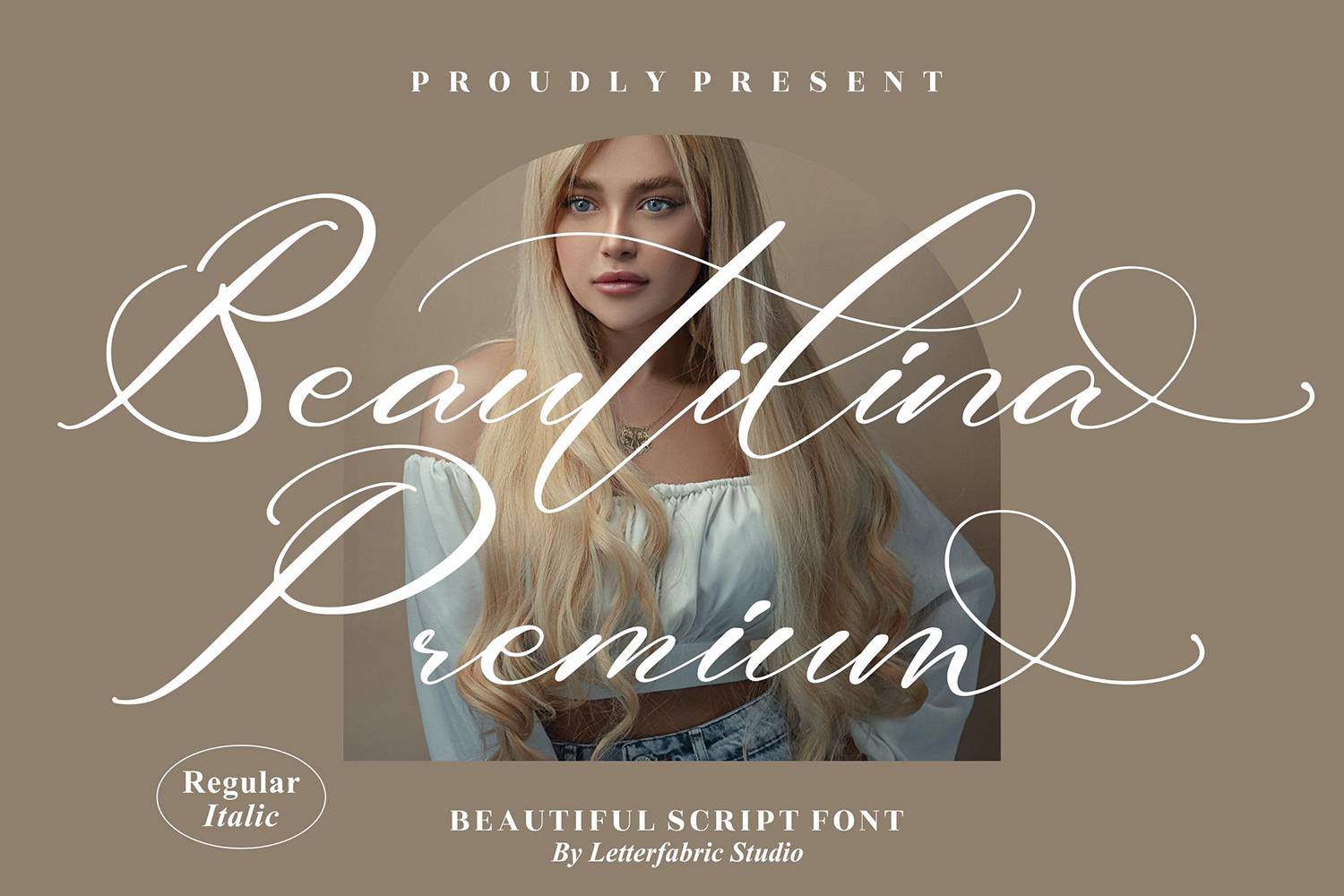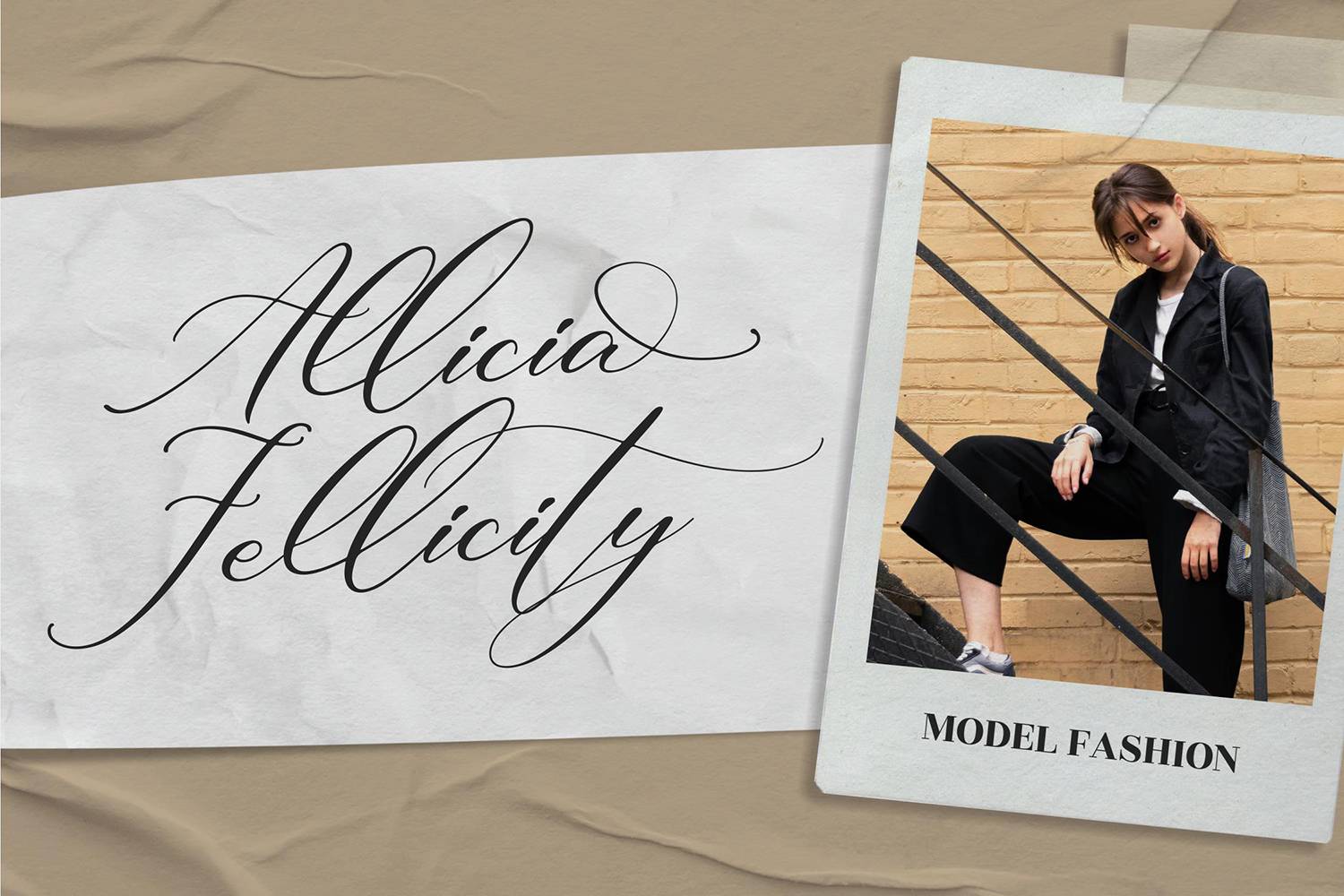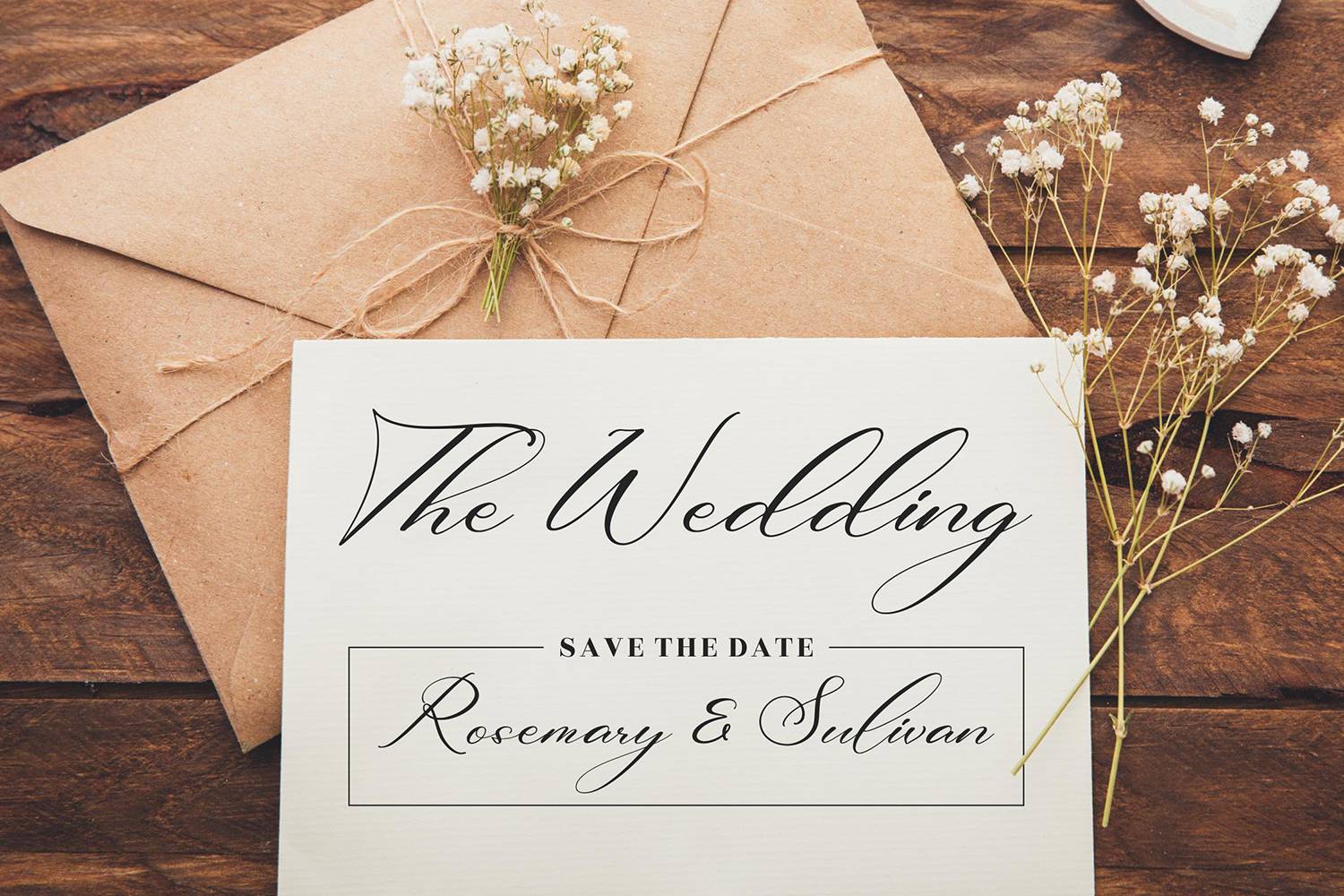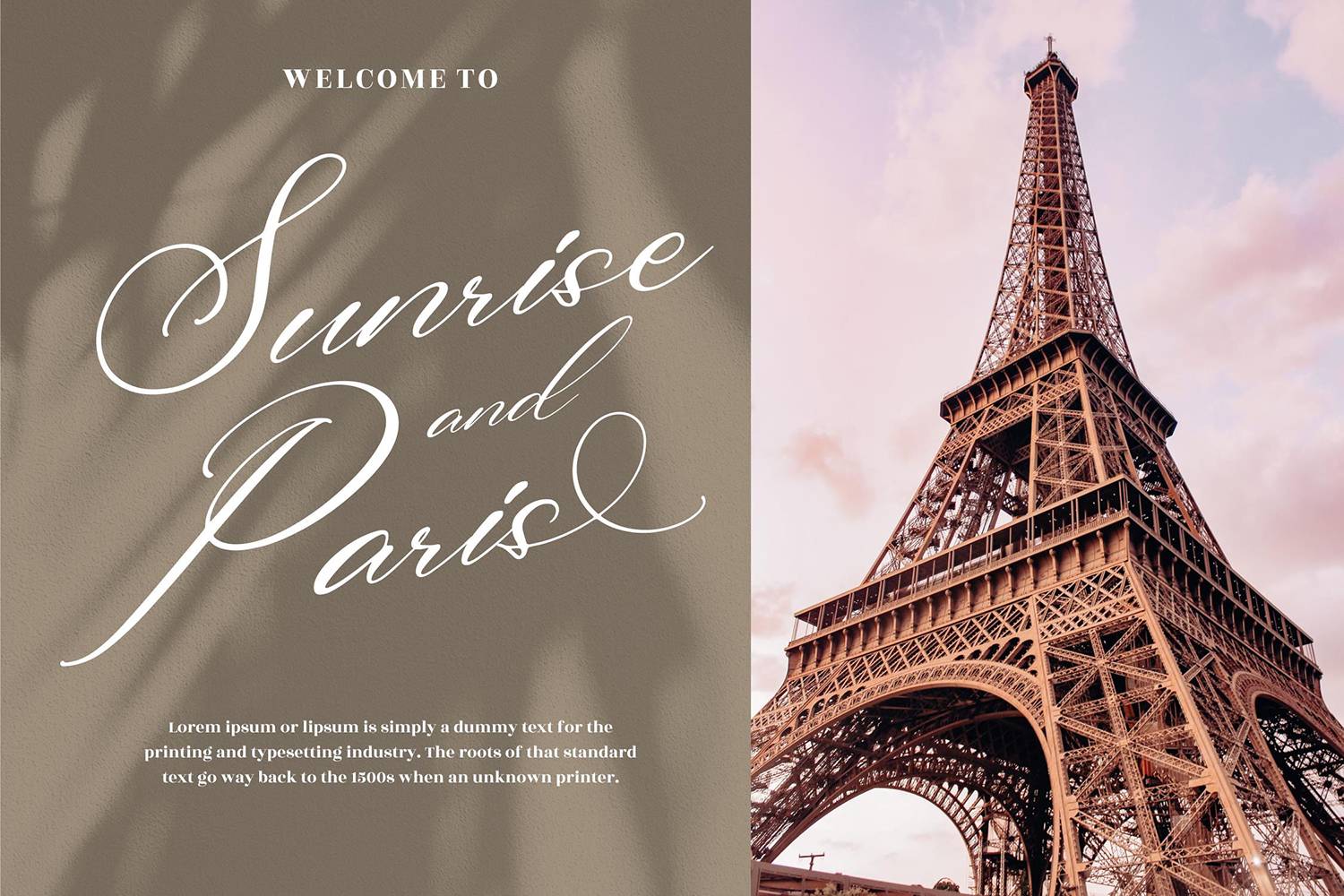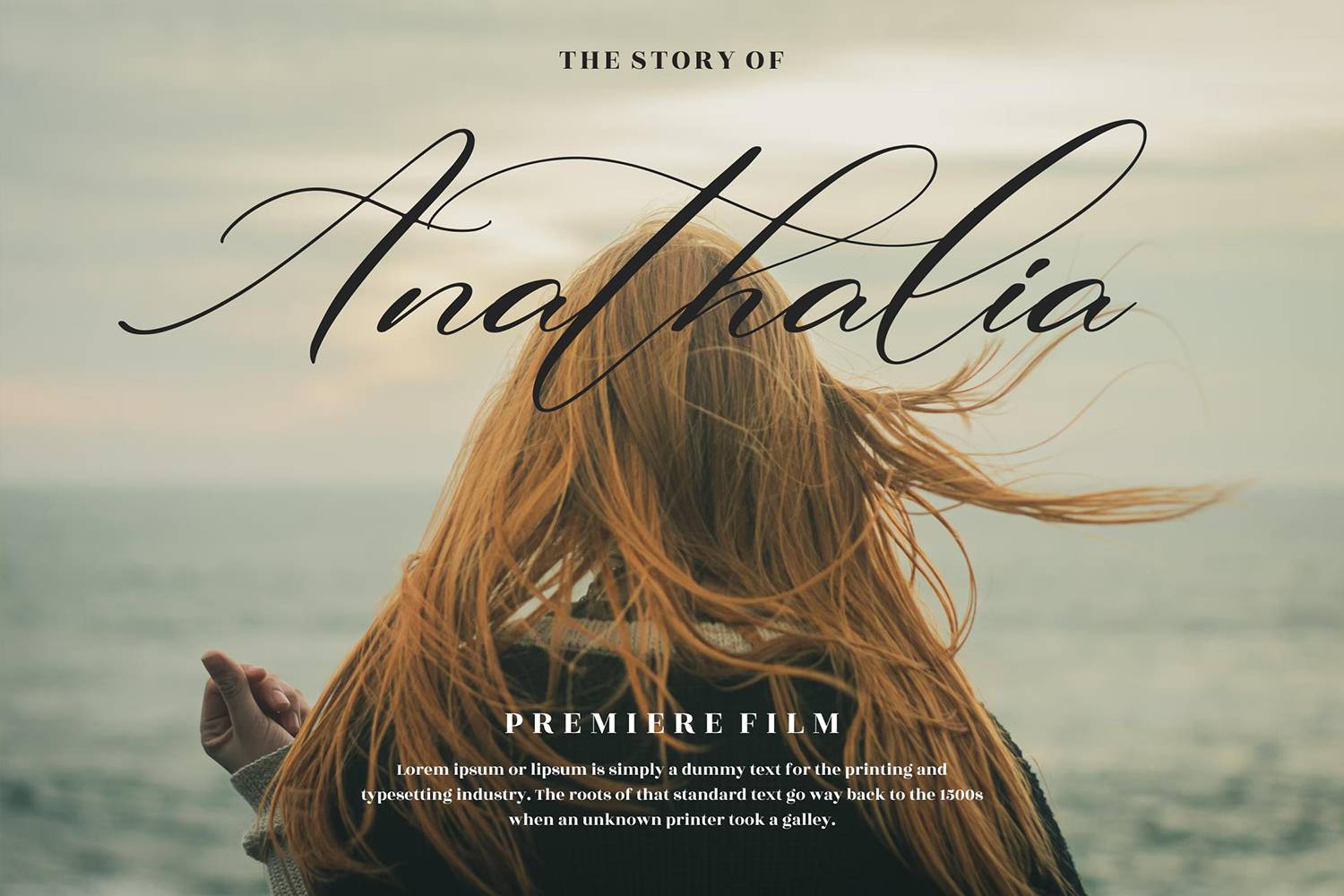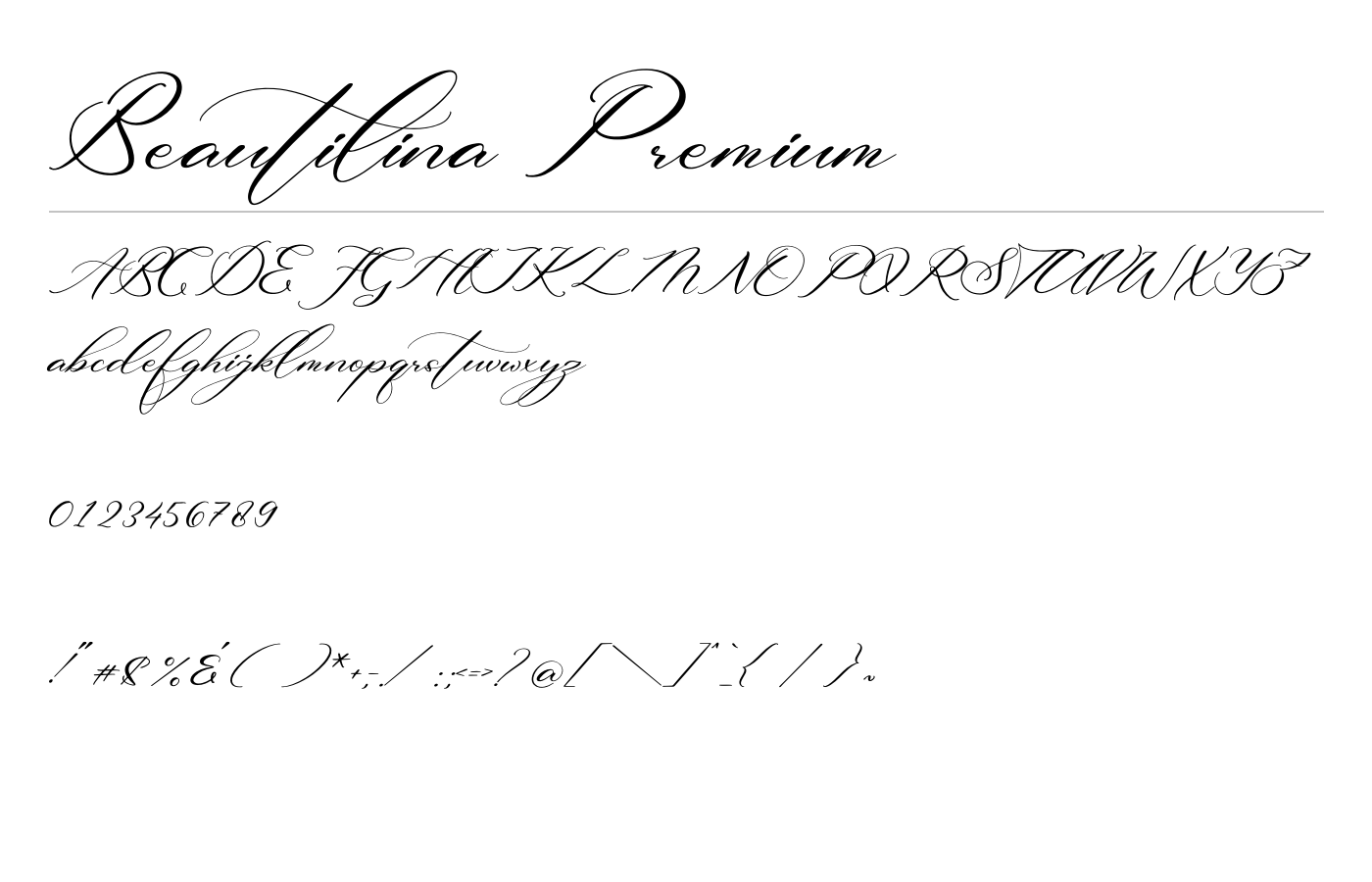
Beautilina Premium is an elegant, flowing script font characterized by its delicate, high-contrast strokes and graceful swashes. Its refined, handwritten style exudes sophistication and charm, making it ideal for luxury branding, wedding invitations, and upscale editorial design where a touch of timeless beauty is desired. This font shines in headline and logo use, adding a personal yet polished flair to any project.
Beautilina Premium Font